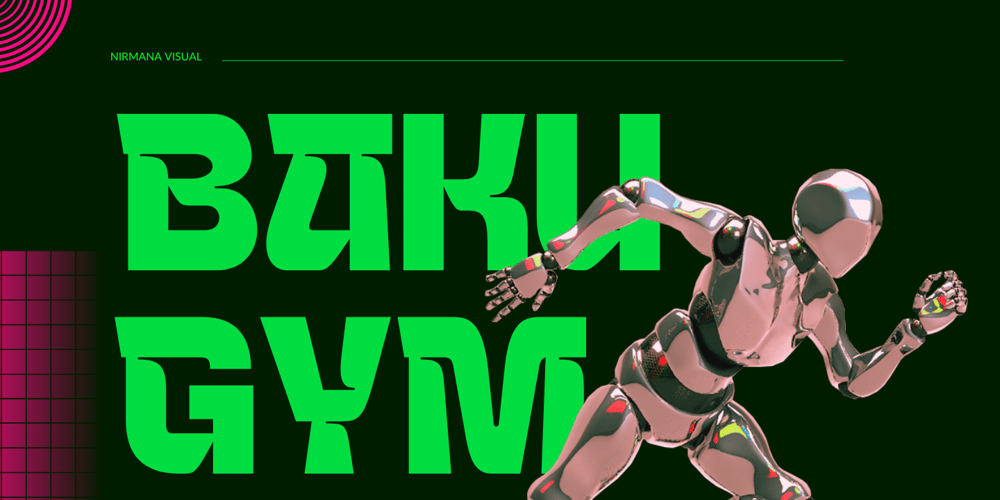
Baku Gym
Baku Gym font
Baku Gym Font Family was designed by Sigit Dwipa and published by Nirmana Visual. Baku Gym contains 1 styles and family package options. Introducing our cutting-edge Sporty Techno font, designed to add a futuristic and sleek aesthetic to your designs. With its sharp lines, geometric forms, and high-tech vibe, this font is perfect for projects that require a modern and forward-looking visual identity.Inspired by the sleek designs of technology and the digital age, this font captures the essence of innovation and progress. Its clean and precise letterforms, along with its distinct futuristic style, make it an excellent choice for technology-based branding, gaming graphics, sci-fi posters, and digital interfaces.